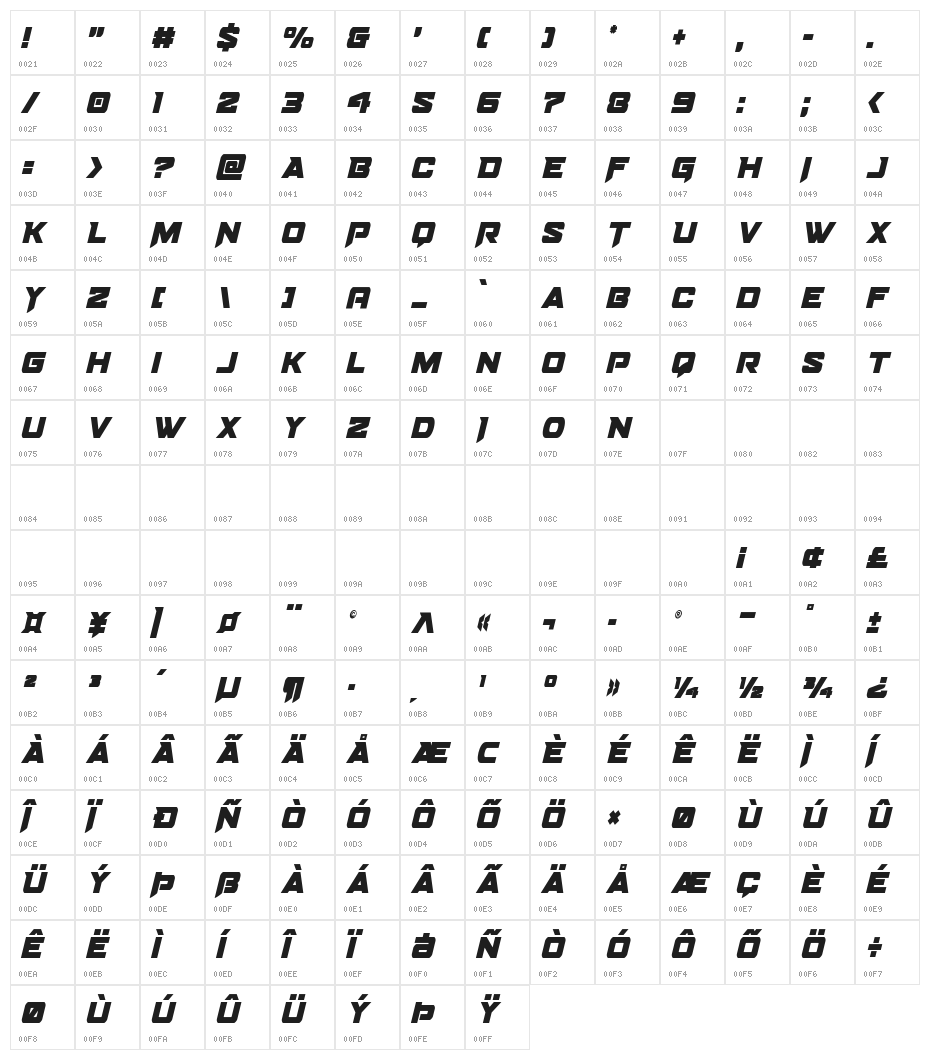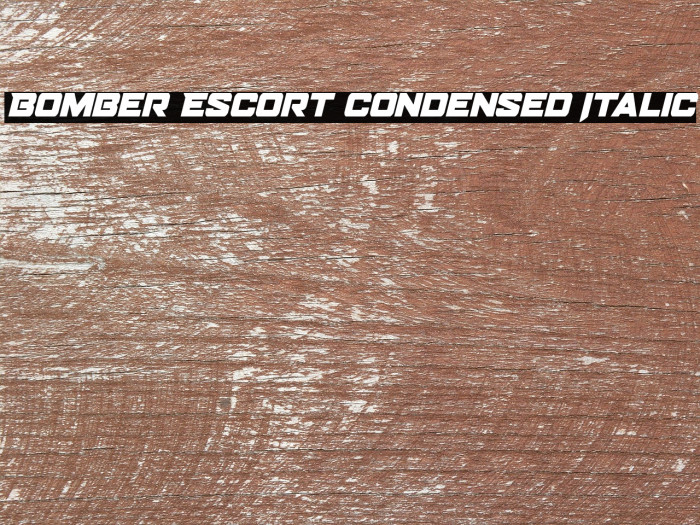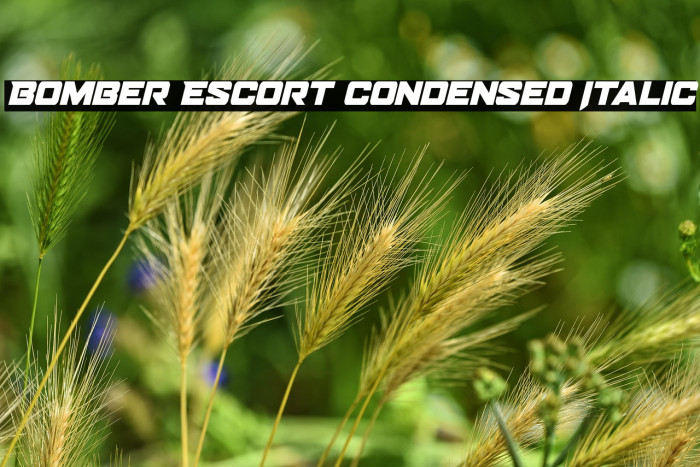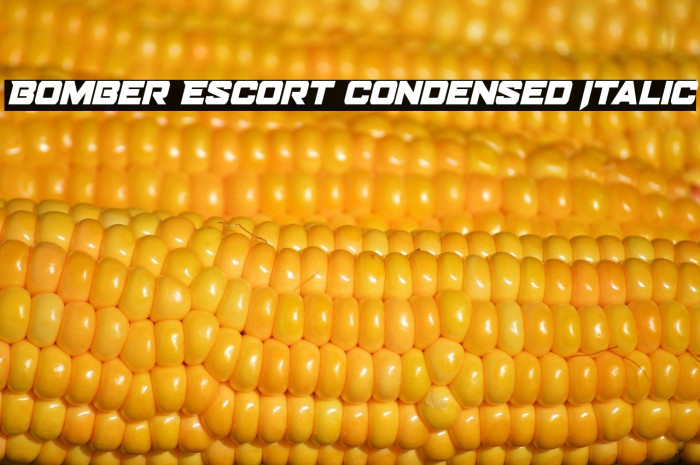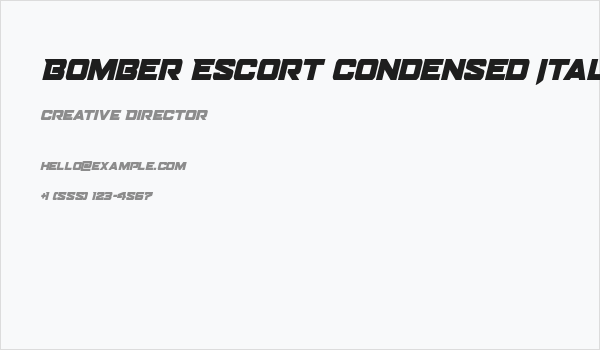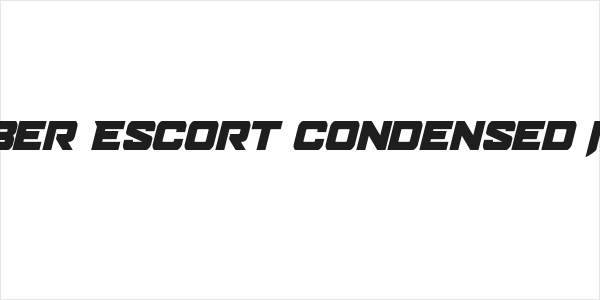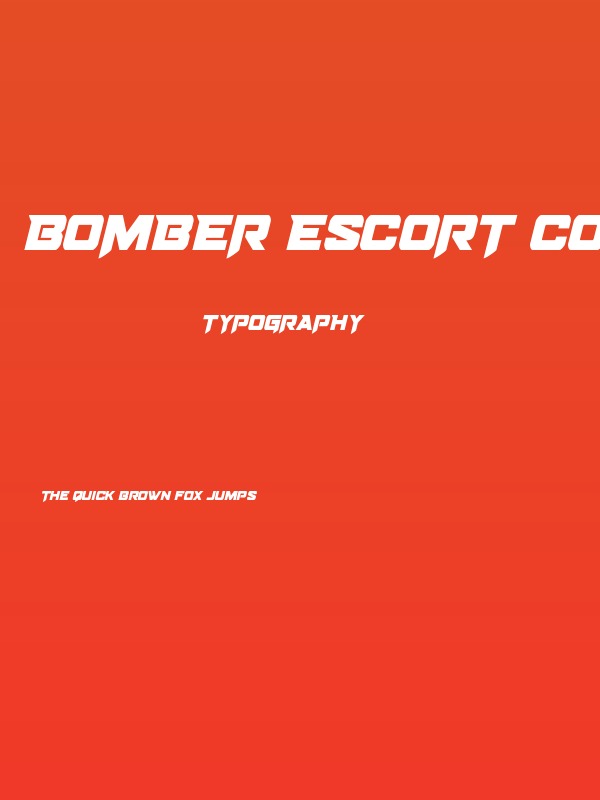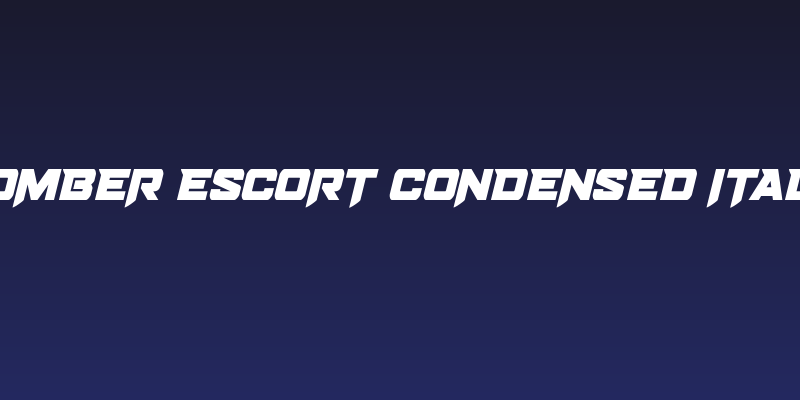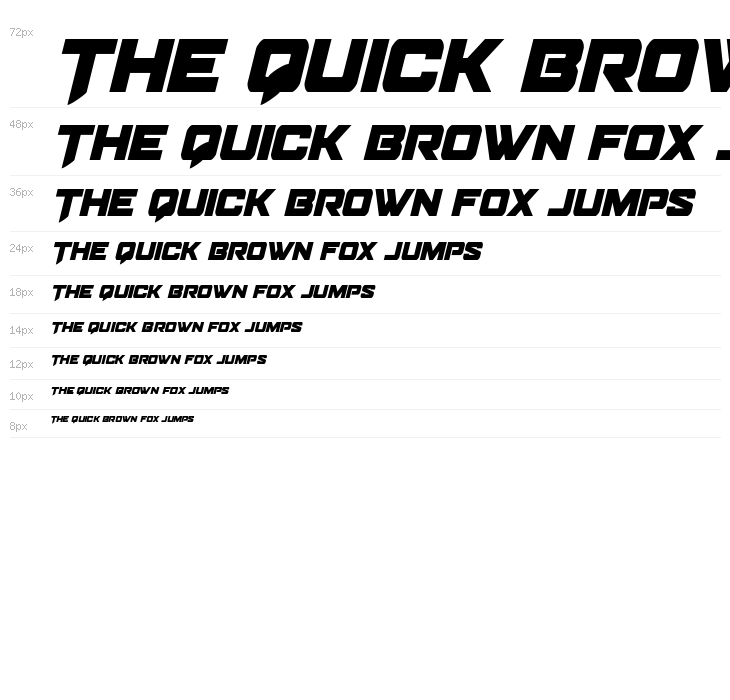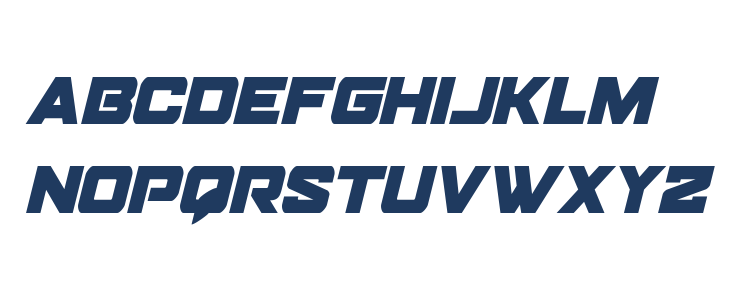
Bomber Escort Condensed Italic Font
Bomber Escort Condensed Italic Description
This font features a bold and dynamic design with a strong emphasis on angular lines and geometric shapes. The characters are condensed and italicized, giving them a sense of speed and movement. The uppercase and lowercase letters maintain a consistent style, with sharp edges and a futuristic appearance. The numbers and special characters follow the same design principles, ensuring uniformity across all elements. This font's boldness and unique style make it stand out, ideal for projects that require a modern and edgy look.
| Proposed Projects | Ideal for sports branding, video game titles, action movie posters, and dynamic advertising campaigns. |